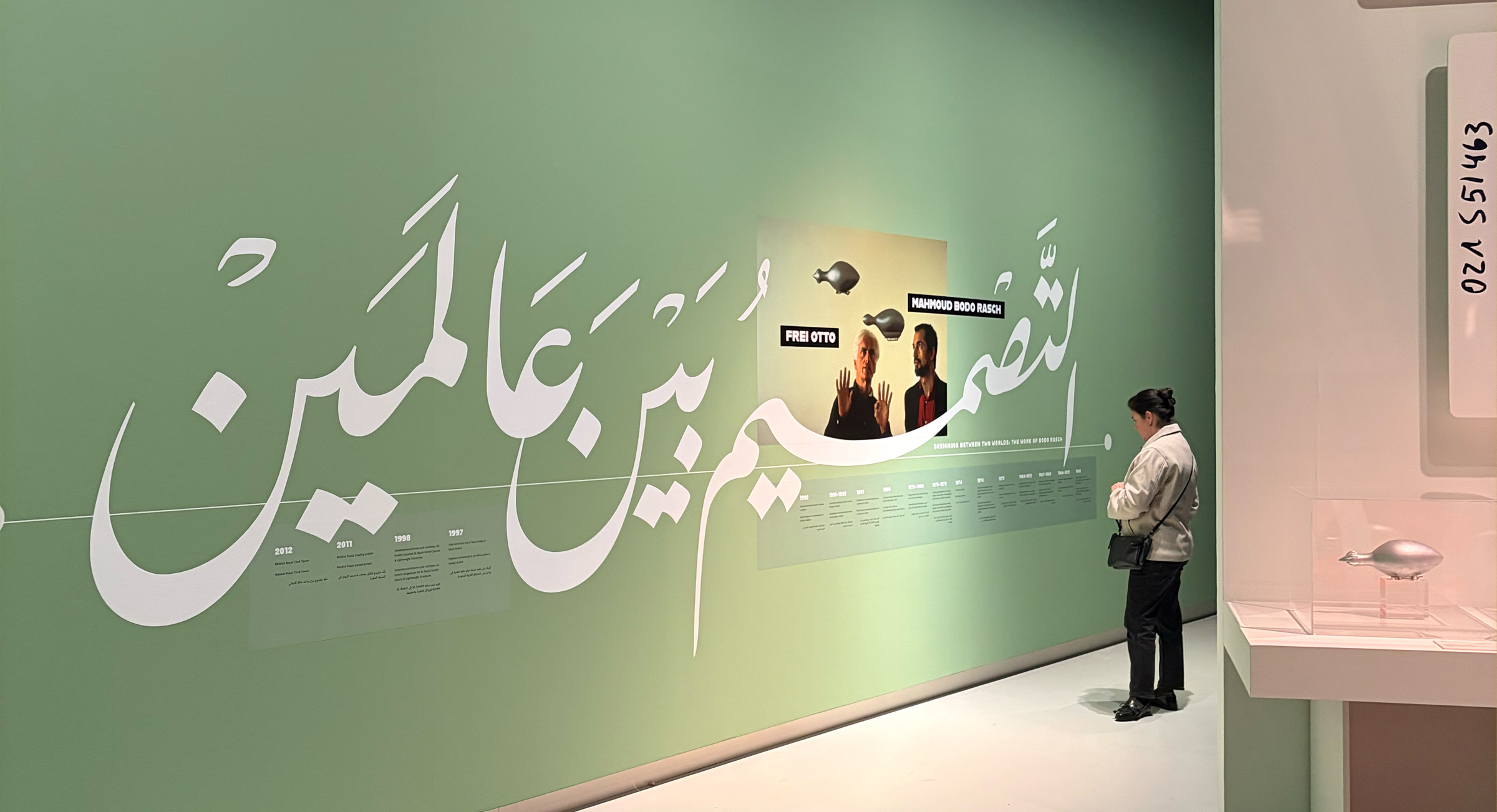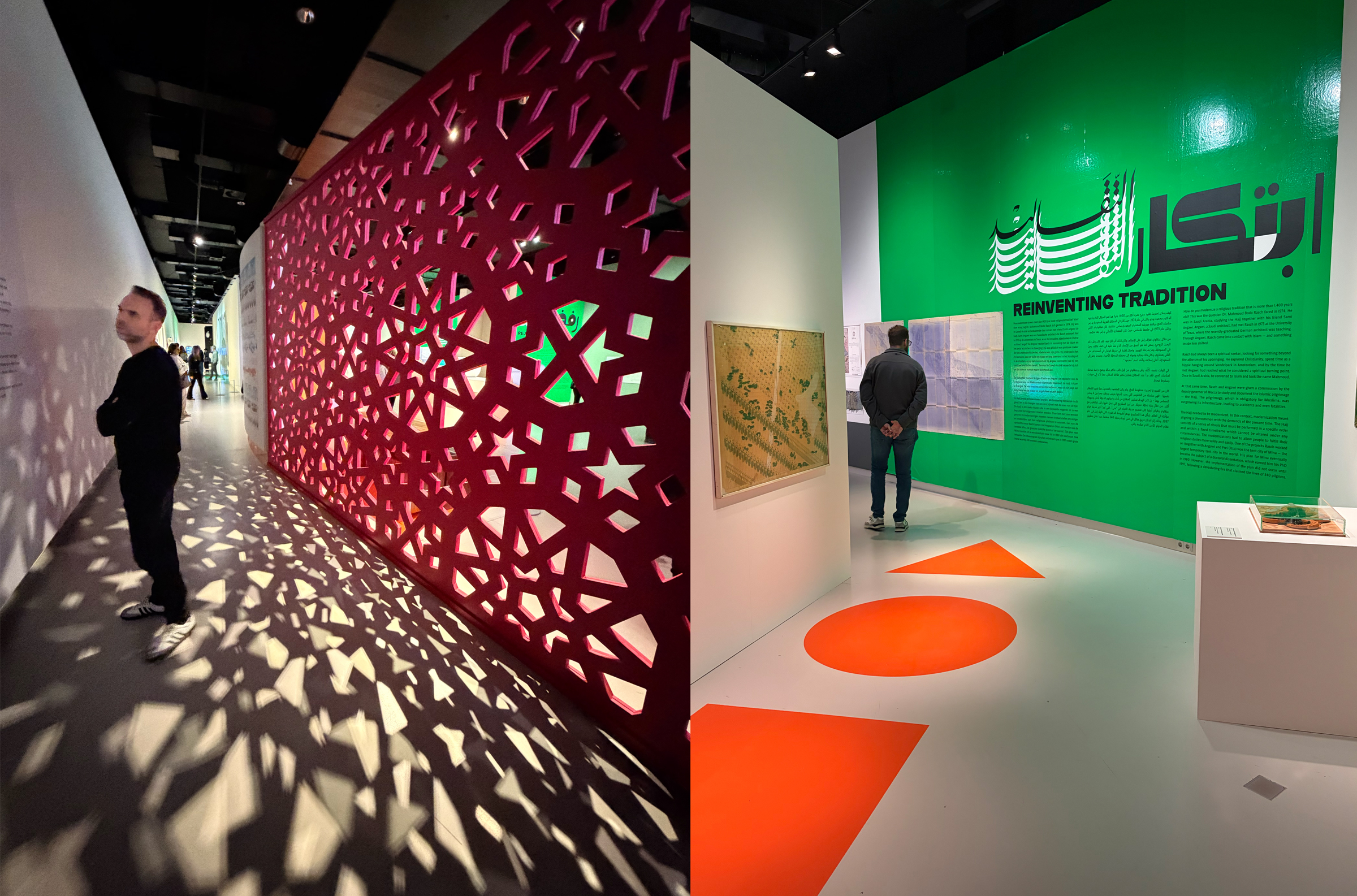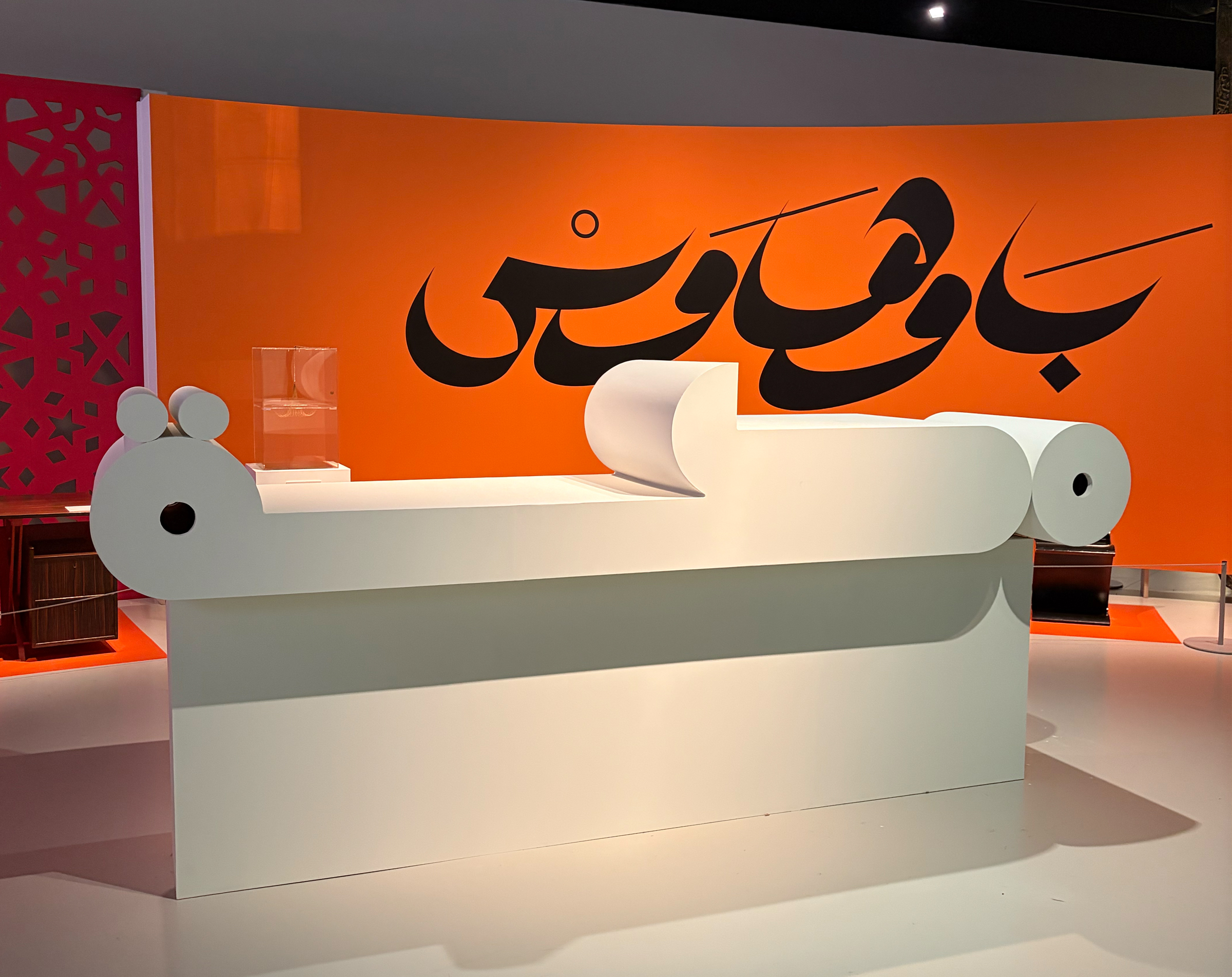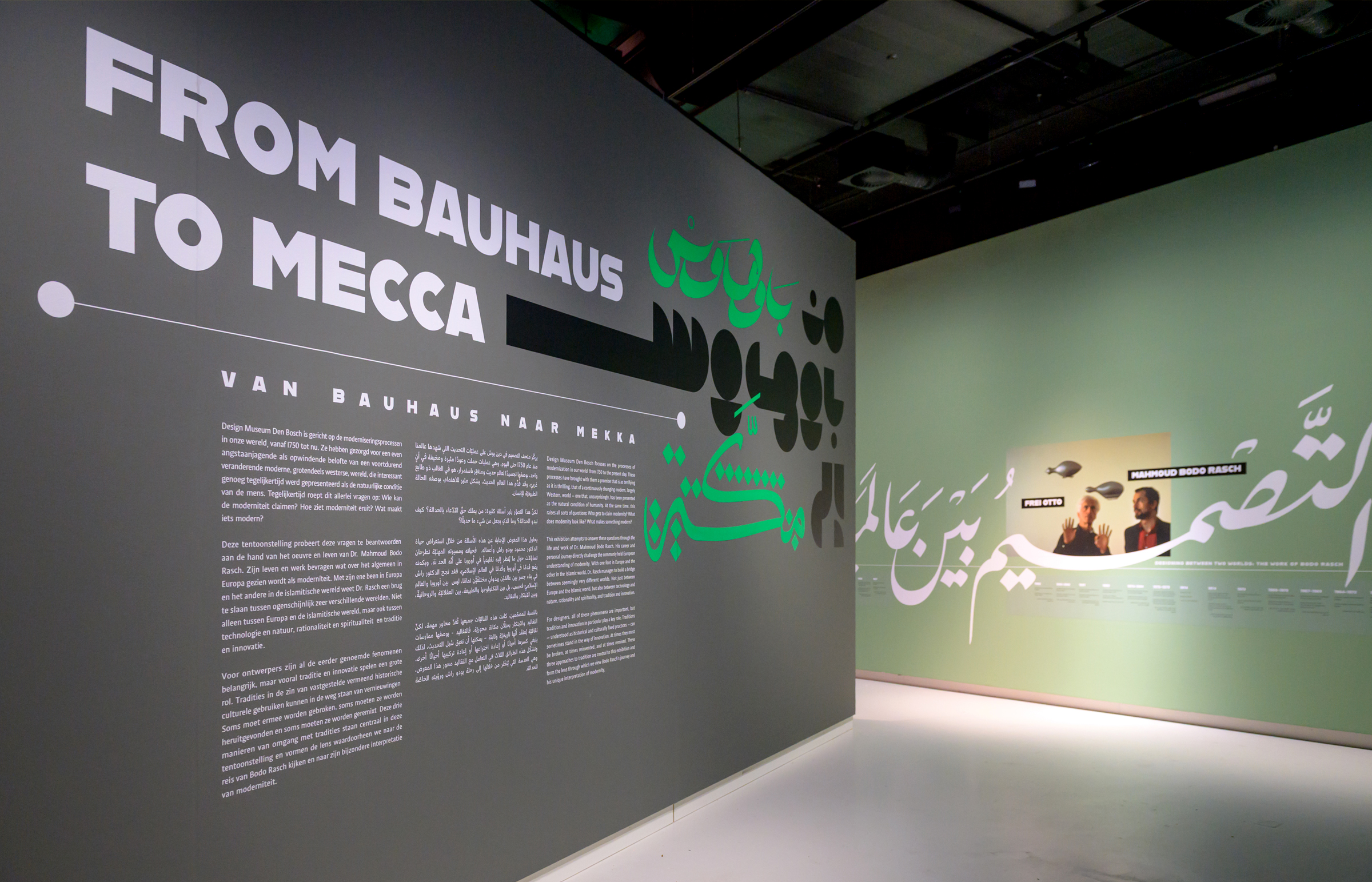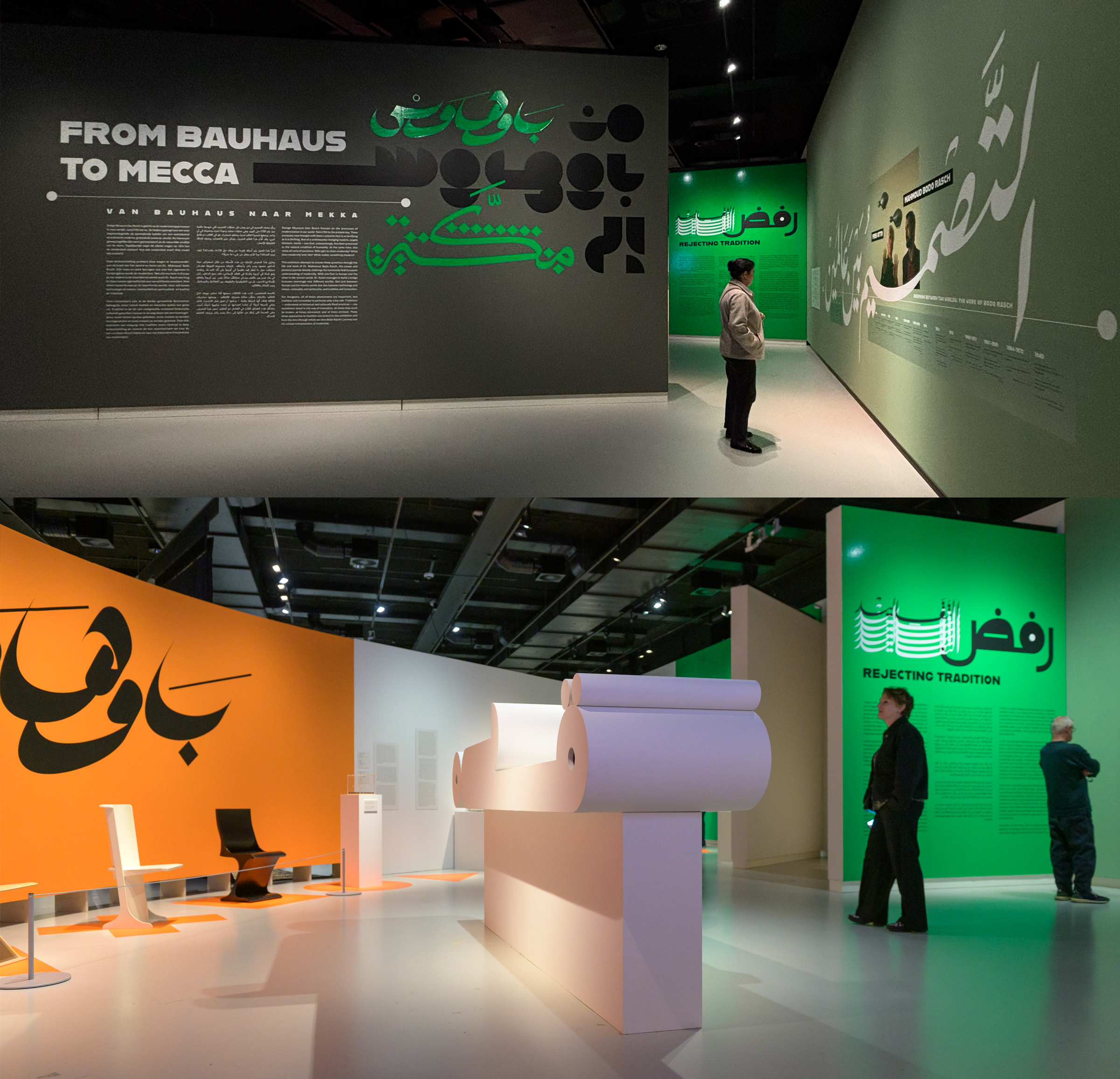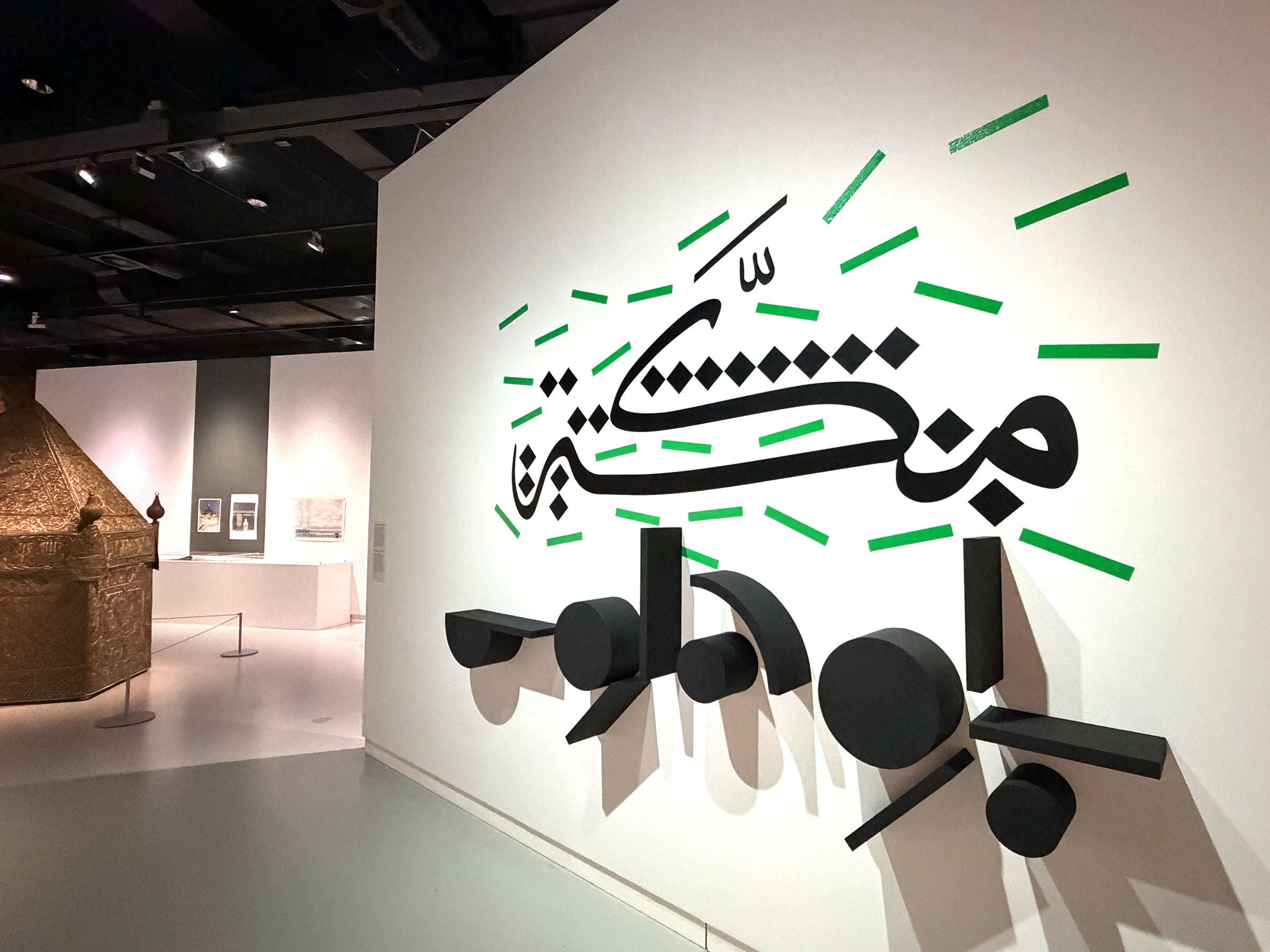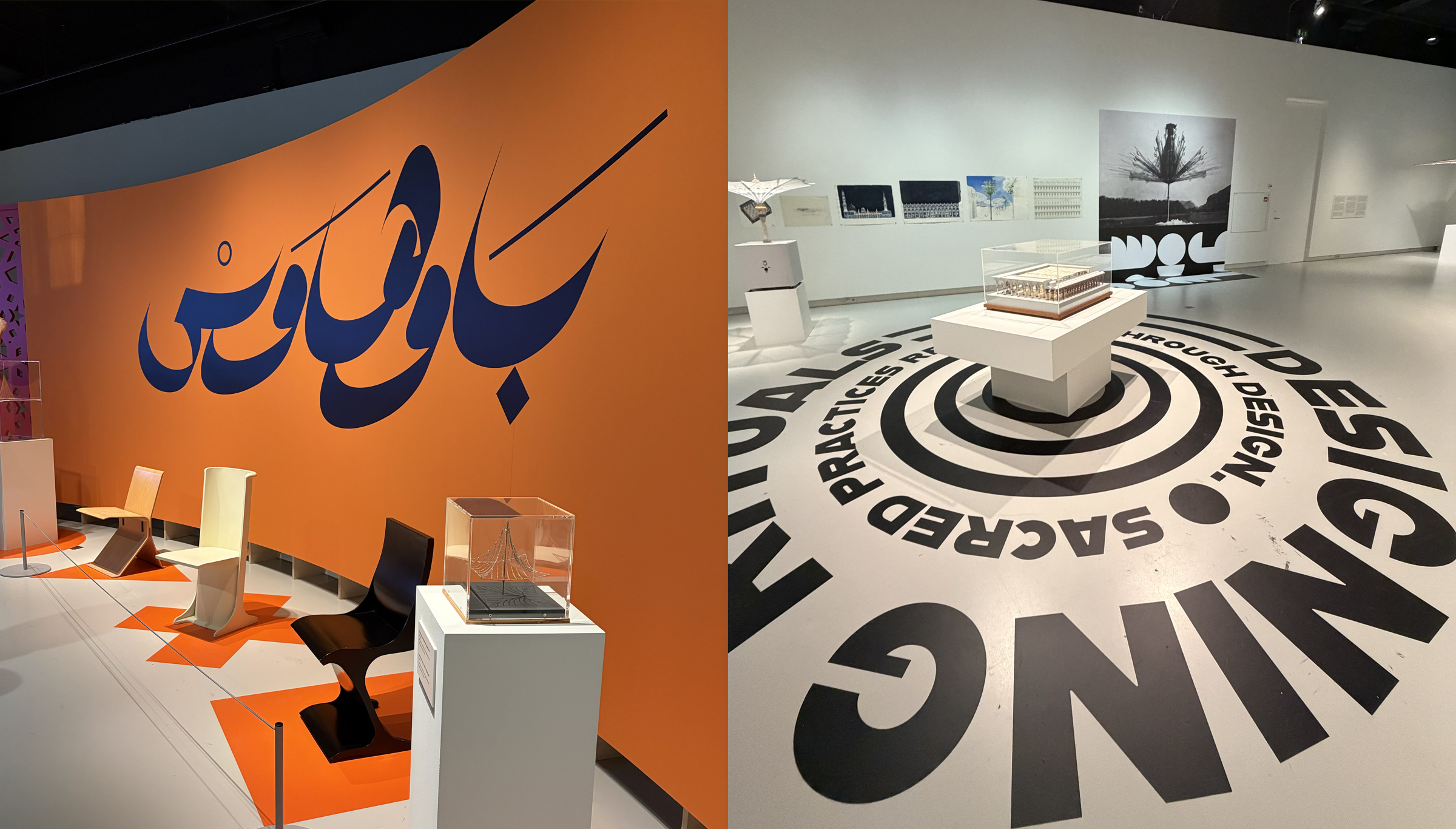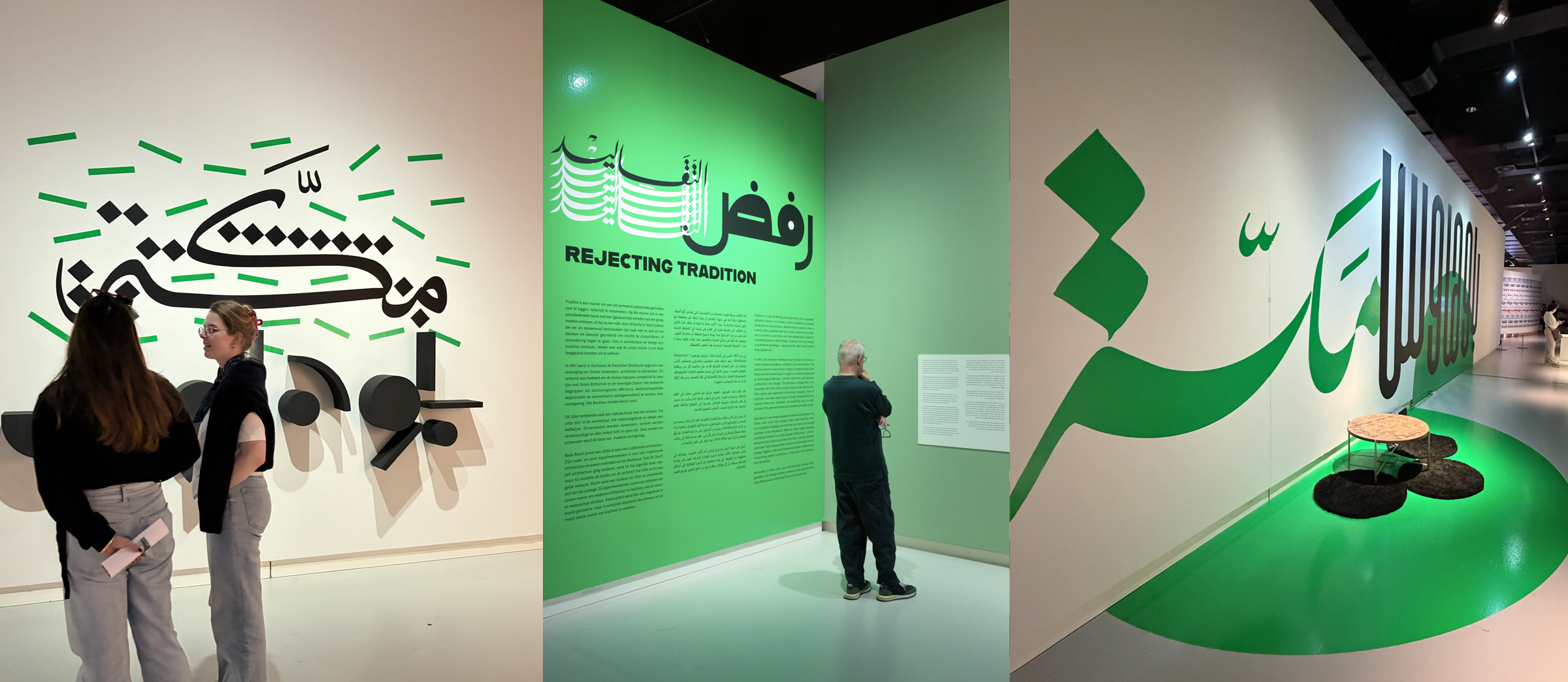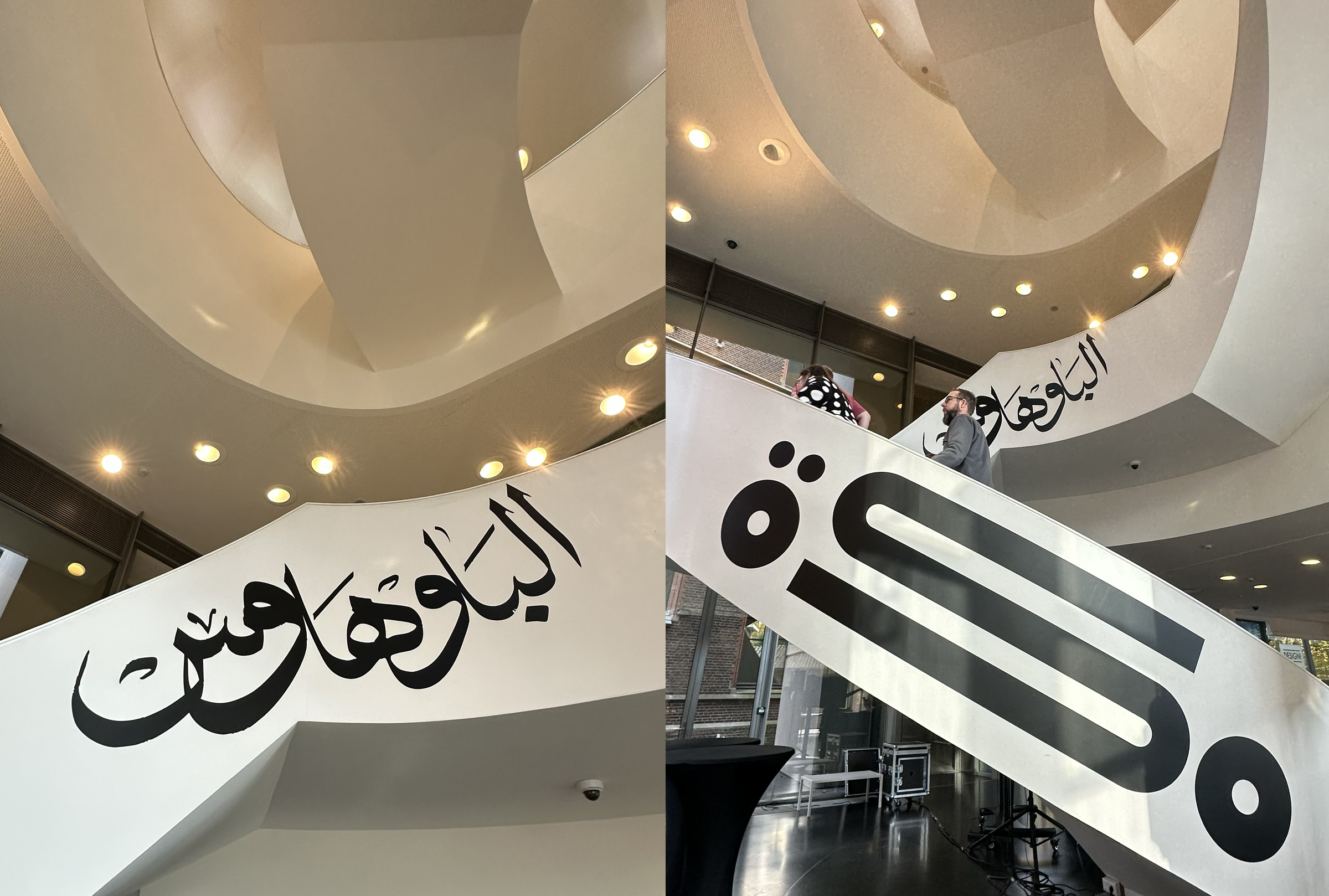
From Bauhaus to Mecca Exhibition Design
Custom handmade Arabic lettering formed the central visual and spatial language of the exhibition From Bauhaus to Mecca at Design Museum Den Bosch in the Netherlands. The exhibition presented the architectural legacy of a German Bauhaus architect whose life’s work unfolded primarily in Saudi Arabia, particularly in Mecca. The lettering became a key narrative device, translating the curatorial concept into a visual journey that oscillated between structure and ornament, rationality and symbolism.
The typographic compositions evolved throughout the space, gradually shifting from expressive script to architectural structure. Letterforms inspired spatial elements and scenography, becoming part of the physical fabric of the exhibition. The dialogue between classical calligraphy, modern simplified typography, and experimental Arabic lettering echoed the architect’s own design methodology. This approach enhanced visitor engagement and reinforced the exhibition’s central theme of cultural and conceptual exchange between two worlds.